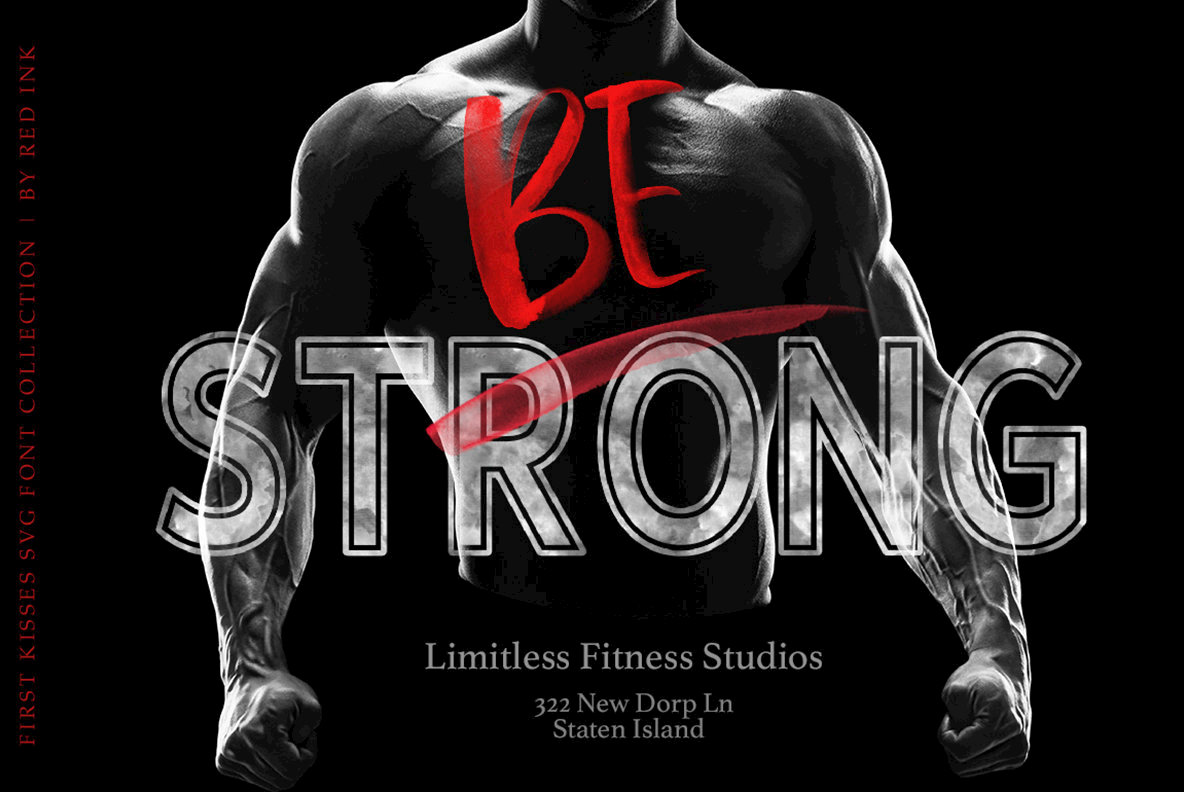
First Kisses Font
Hi there! I’m happy to introduce you my new First Kisses Font Collection!
I created two SVG Fonts, with watercolor handdrawn letters and symbols in high resolution. These fonts fully preserved the watercolor texture and transparency of the letters. The full set of alternate letters and double letter ligatures let you to make your designs more realistic and add the real handdrawn feel to your your messages.